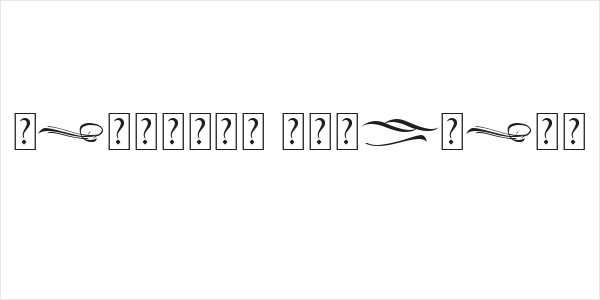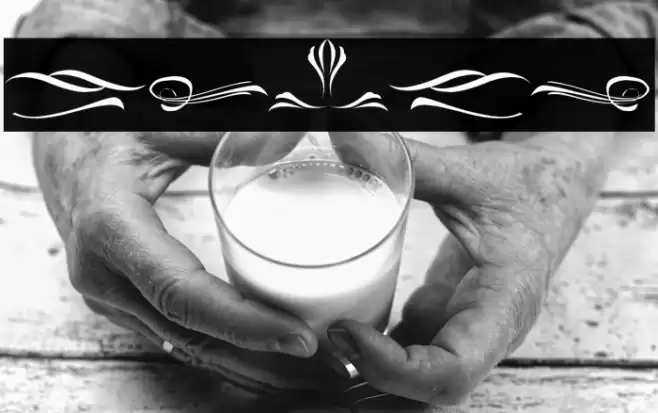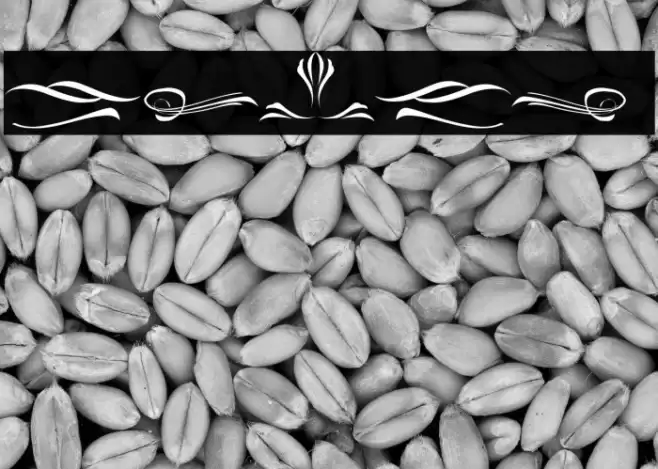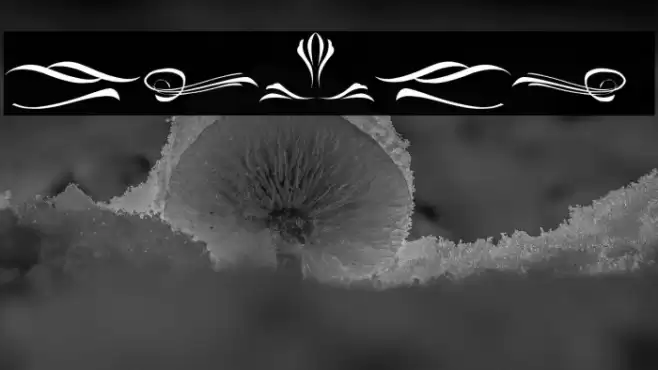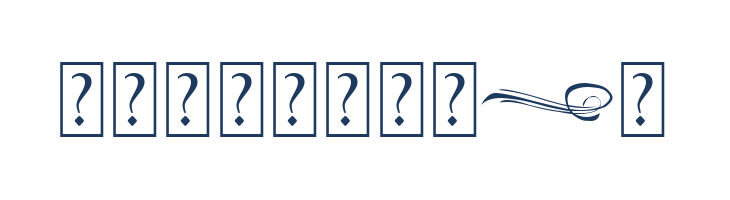
Delusion Ornament Font
Delusion Ornament Description
A decorative font featuring ornate, swirling embellishments and intricate details, creating an elegant and artistic appearance.
| Use Case | Headlines, Artistic designs |
| Proposed Projects | Invitations, decorative headings, artistic projects. |